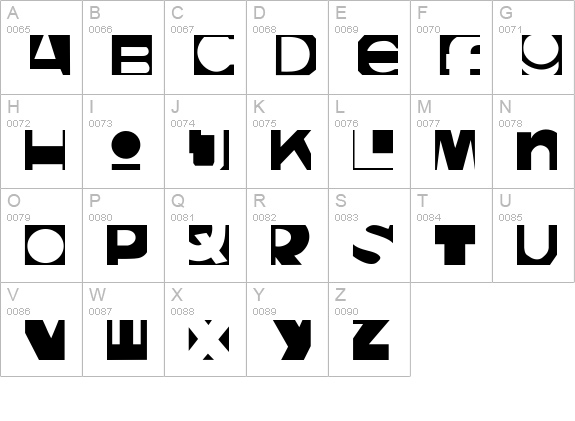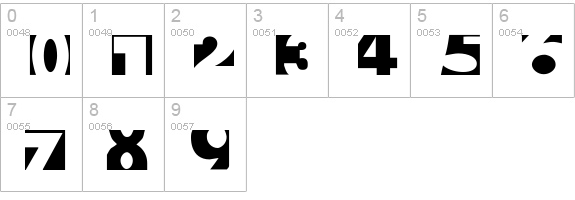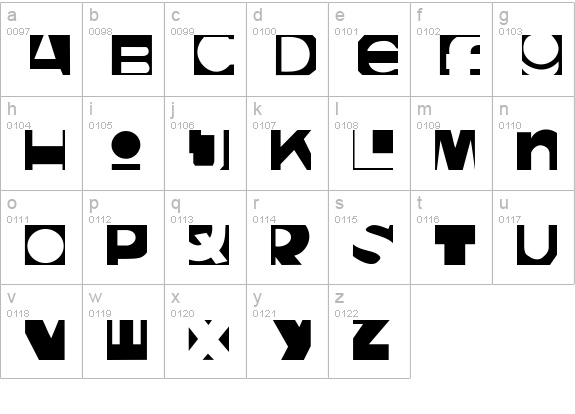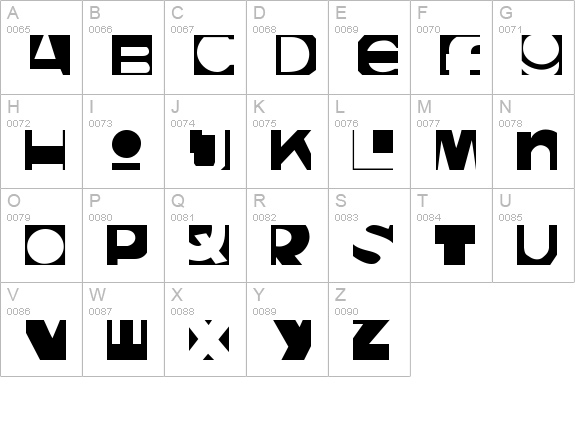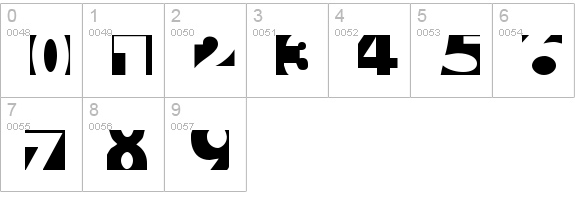
Lunchbox Font Details
Lunchbox font is a charming and playful typeface that is perfect for adding a touch of whimsy to your designs. With its rounded edges and bold lines, this font is sure to make a statement. Whether you're creating invitations, posters, or branding materials, Lunchbox font will add a fun and friendly vibe to your projects. Best of all, this font is available for free download at FontsMarket.com, making it accessible to everyone looking to add a little creativity to their work. Don't miss out on this delightful font - download Lunchbox today and let your imagination run wild!